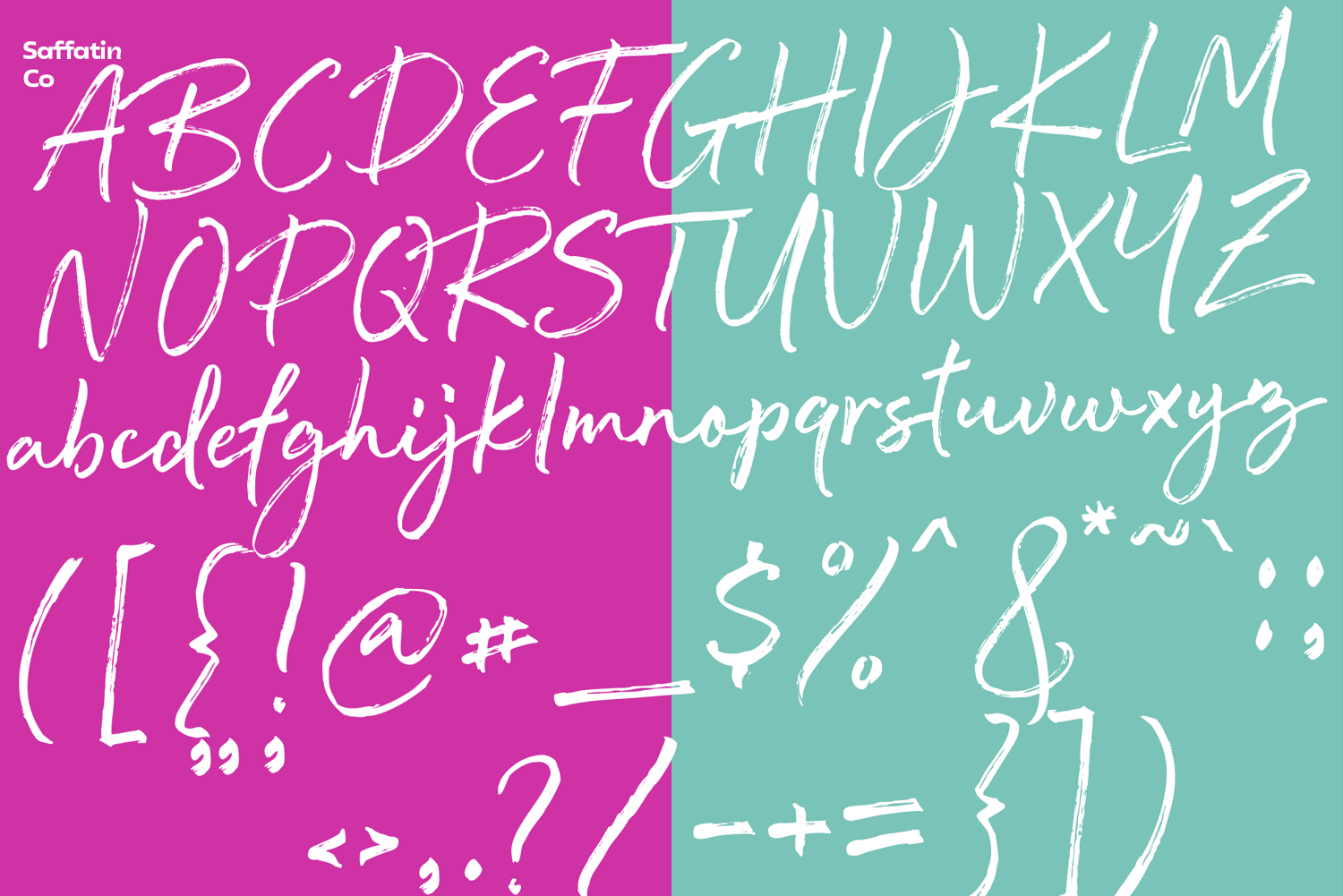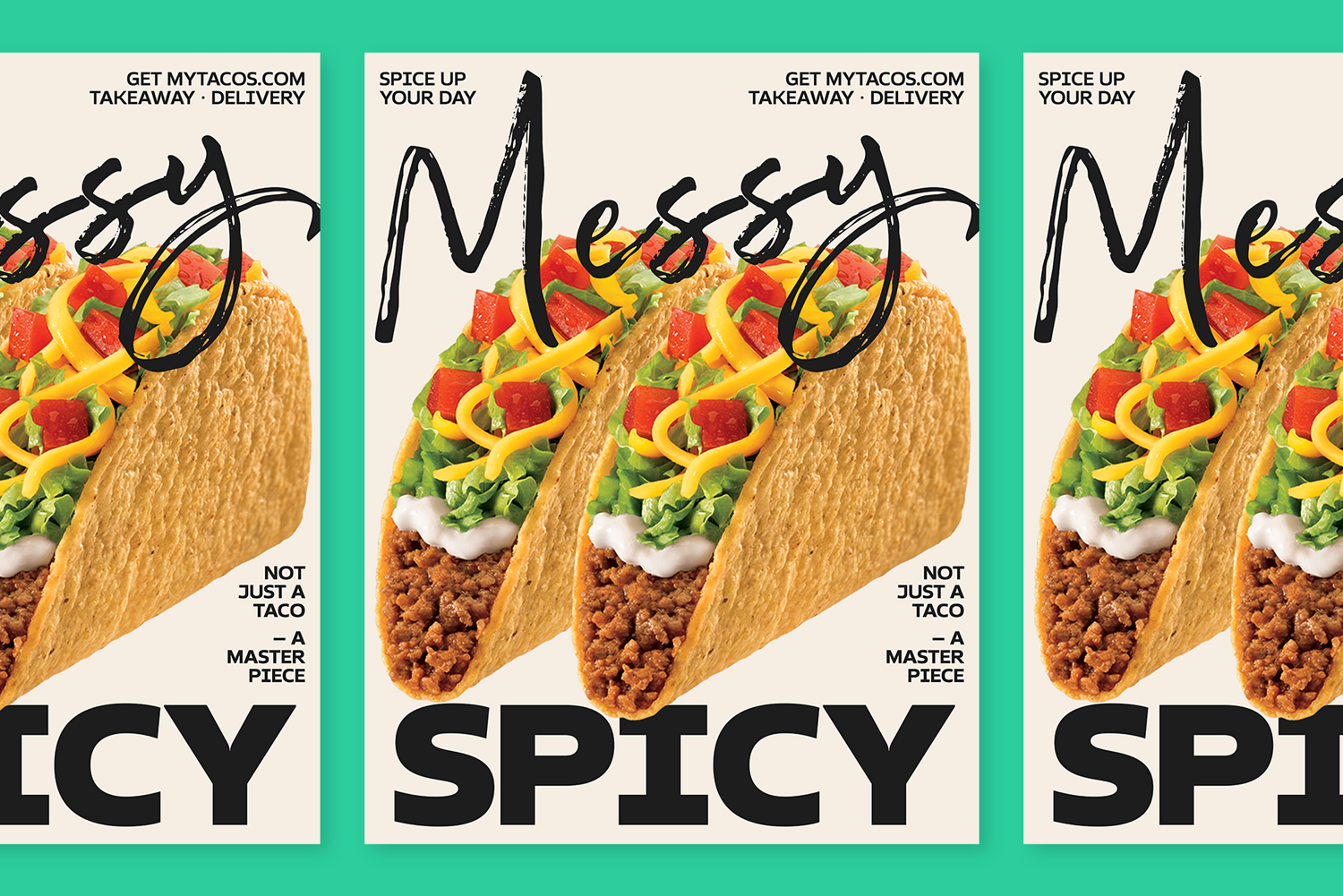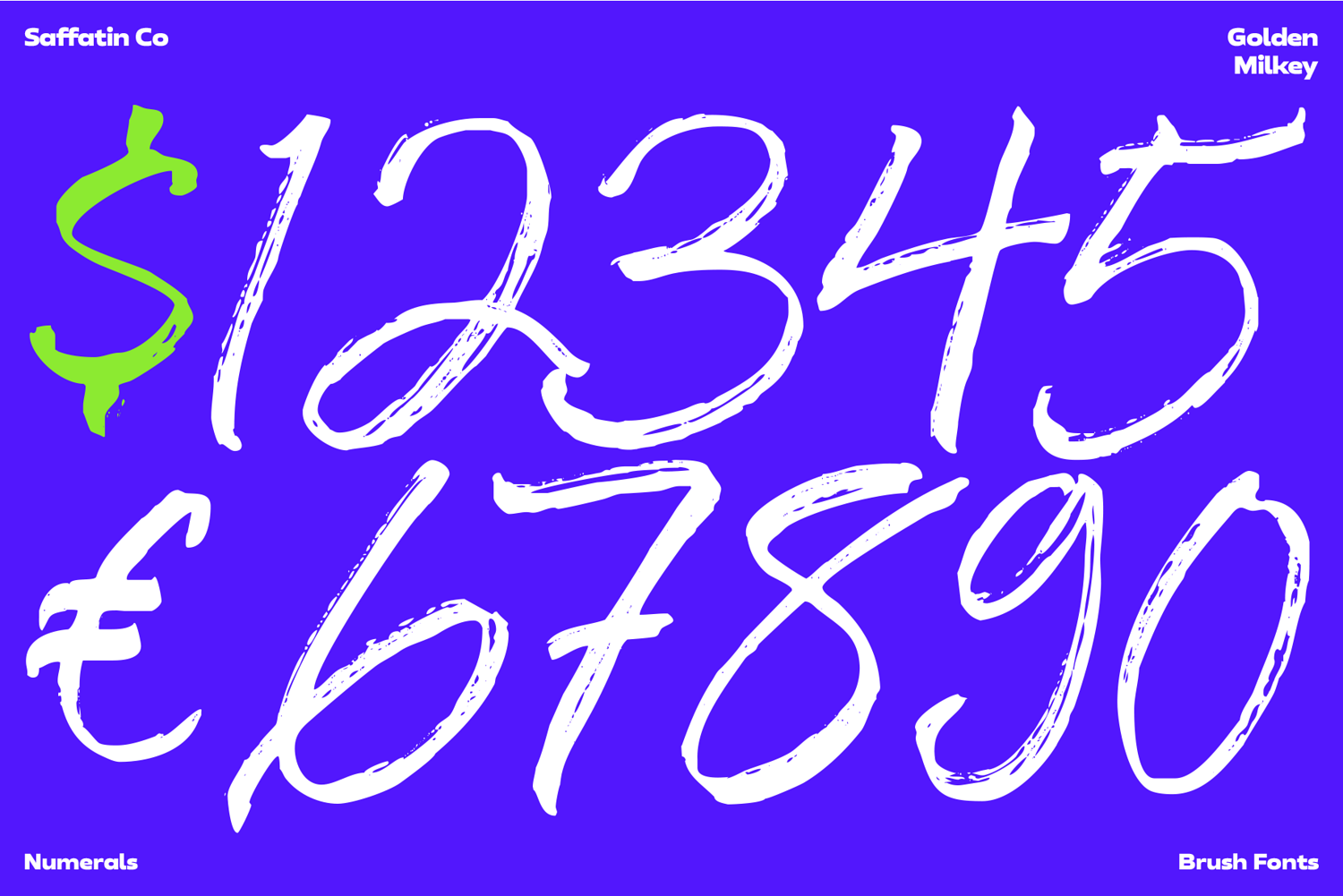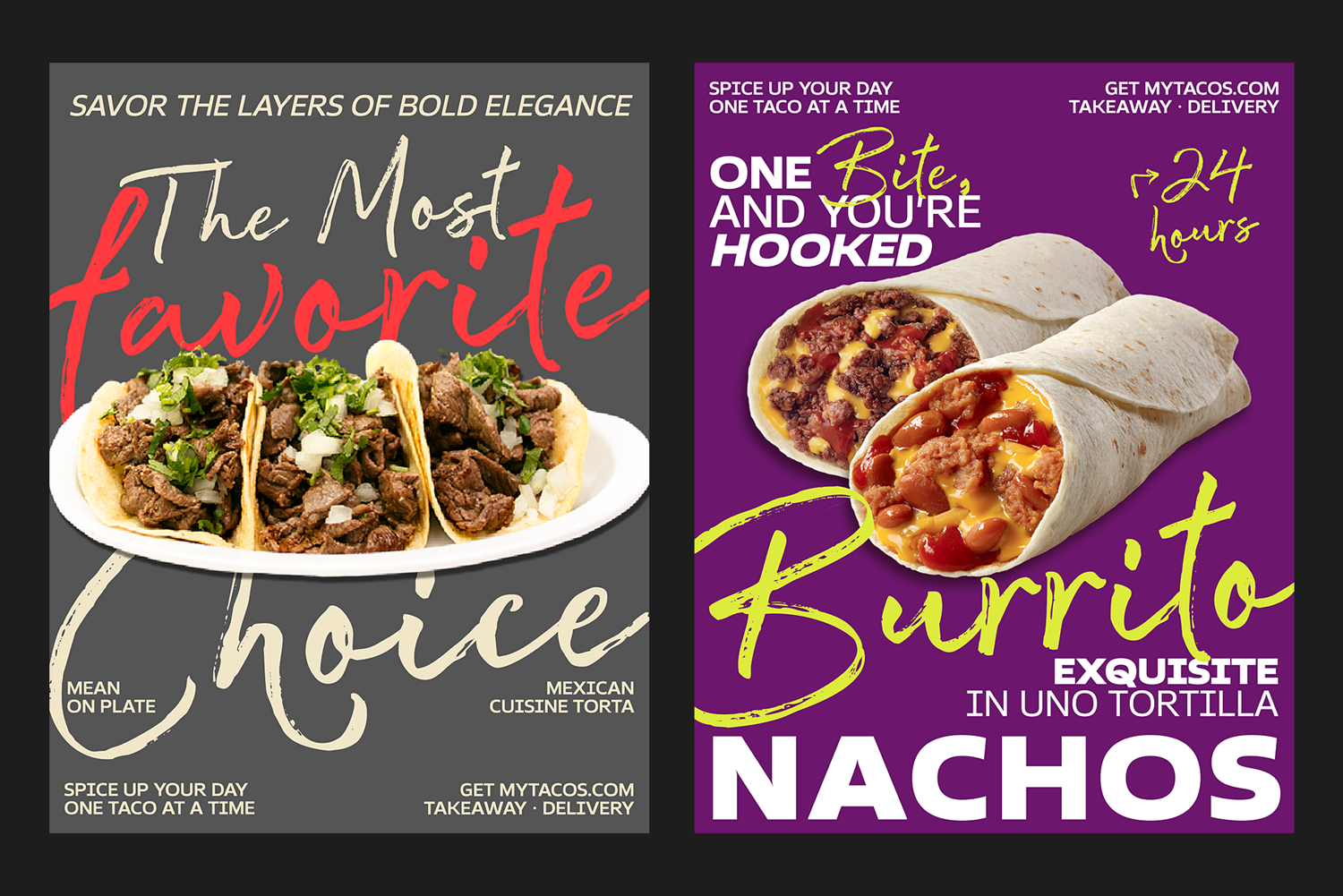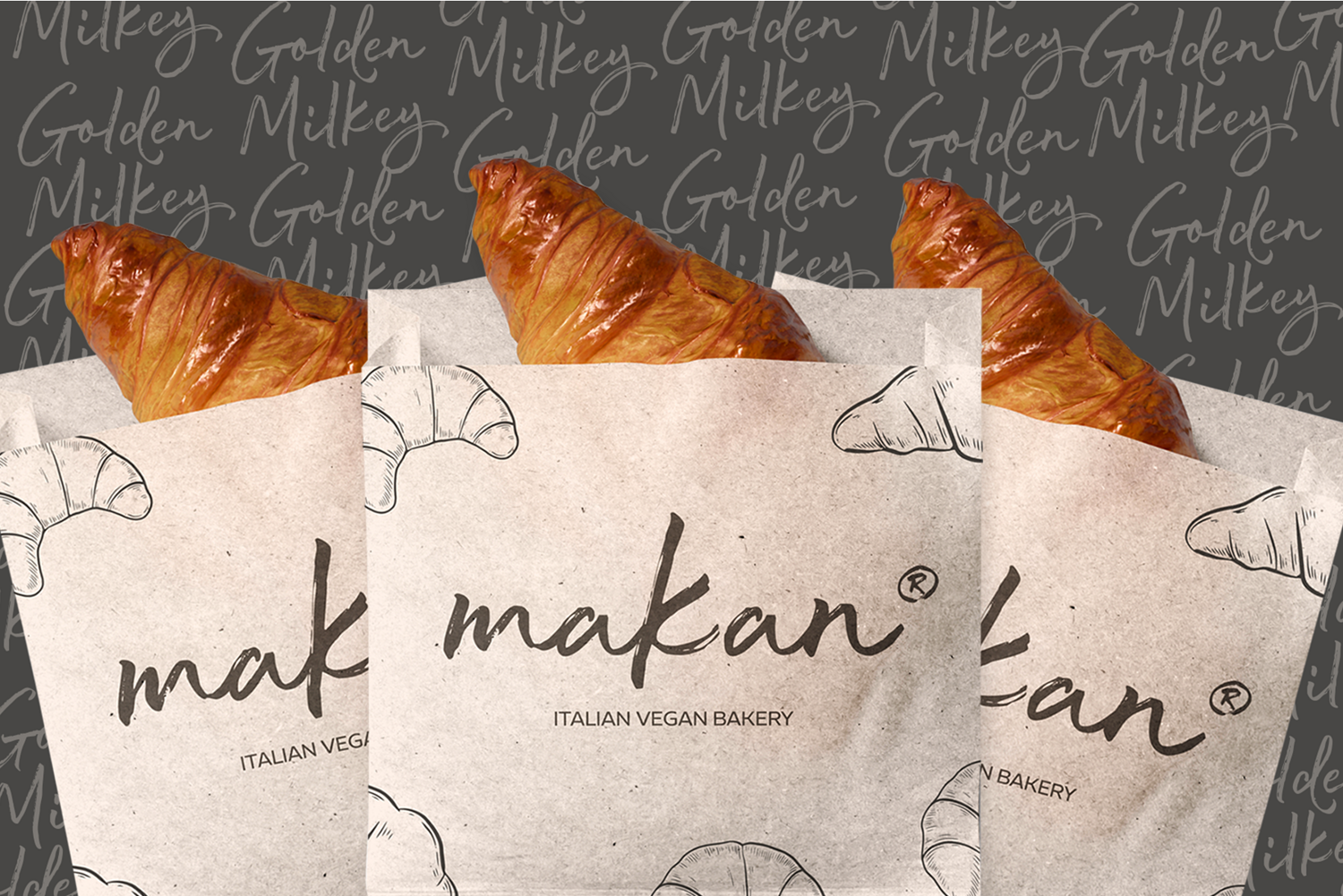
Golden Milkey Brush Fonts
Golden Milkey is a bold yet graceful brush font, capturing the essence of hand-painted lettering while offering a modern, versatile appeal. Ideal for creators aiming to make their words shine, Golden Milkey effortlessly blends playful curves with organic strokes, infusing each project with a personal and inviting touch.
It excels in branding, packaging, social media posts, invitations, and Print-on-Demand products, turning simple text into striking statements. The font's smooth flow and natural brush texture inspire creativity and charm, making it an essential choice for designers who prioritize style alongside readability.
Whether you are designing a cozy café logo, a whimsical quote print, or engaging digital content, Golden Milkey introduces a touch of elegance and authenticity that ensures your design stands out. With robust features and multilingual support, it serves as your creative partner, perfect for projects that require a heartfelt, handcrafted influence.